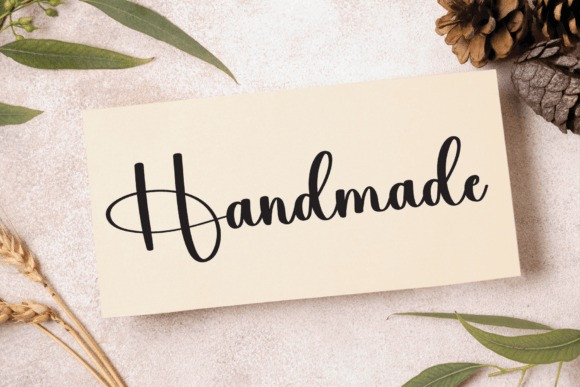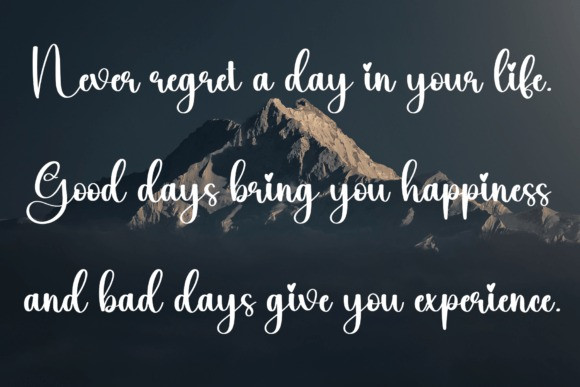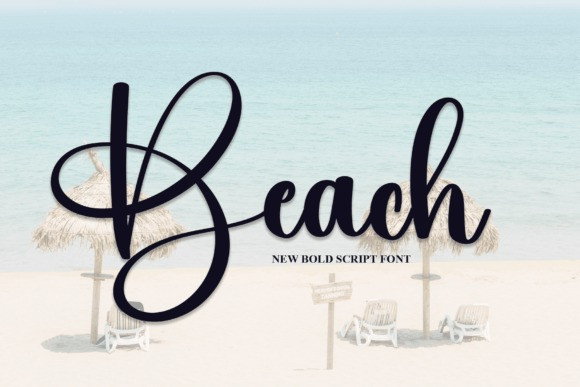
Beach Bold Font
Beach Bold Font, This font’s newest typefaces are perfect for walls, wedding invitations, social media post logos, advertising, product packaging, product design, labels, photography, watermarks, invitations , stationery and any project that requires a hobby of handwriting.